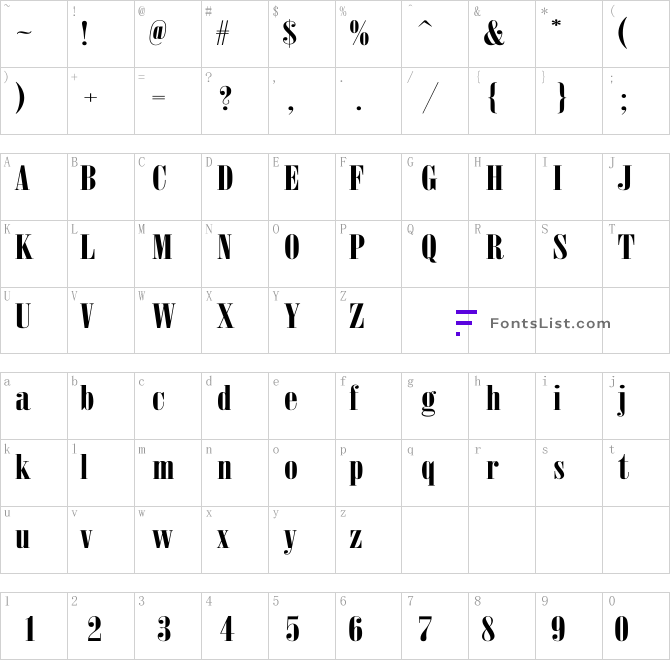
- Font Name:Arsis DReg Normal
Arsis-DReg-Normal.ttf is a very beautiful artistic font, Arsis-DReg-Normal.ttf is widely used in the design and printing of various books and pictures,Arsis-DReg-Normal.ttf has a strong visual impact,Arsis-DReg-Normal.ttf is a commonly used font in newspapers, magazines and books, and is used in posters, e-commerce Poster design, store design, logo design, font design and other fields.Arsis-DReg-Normal.